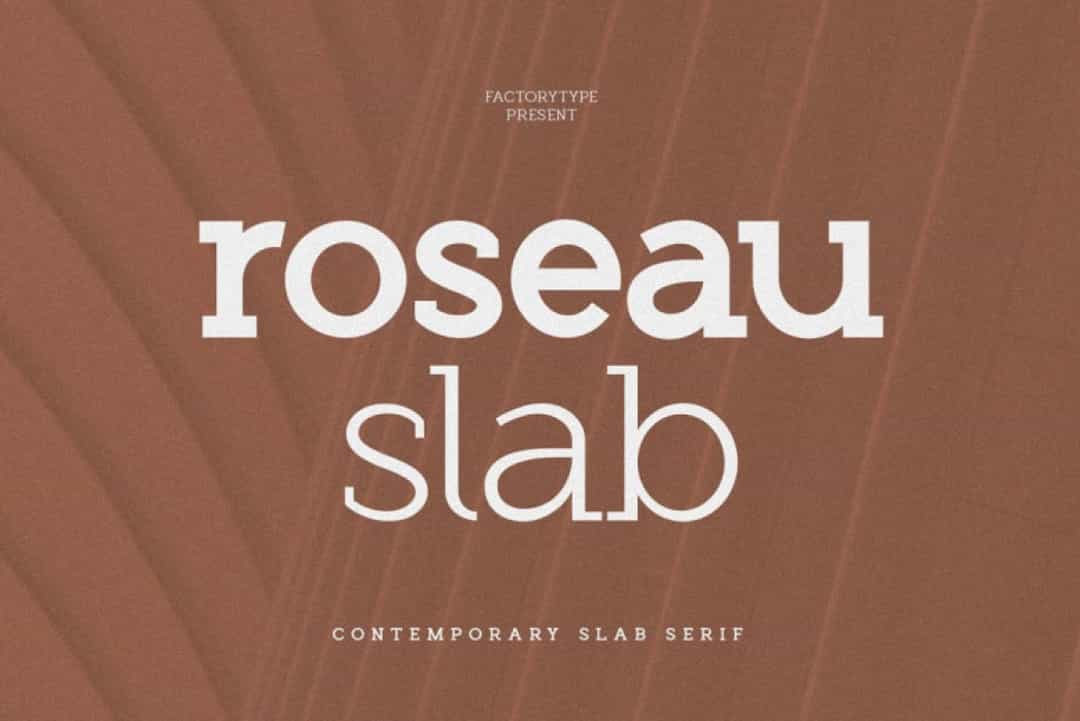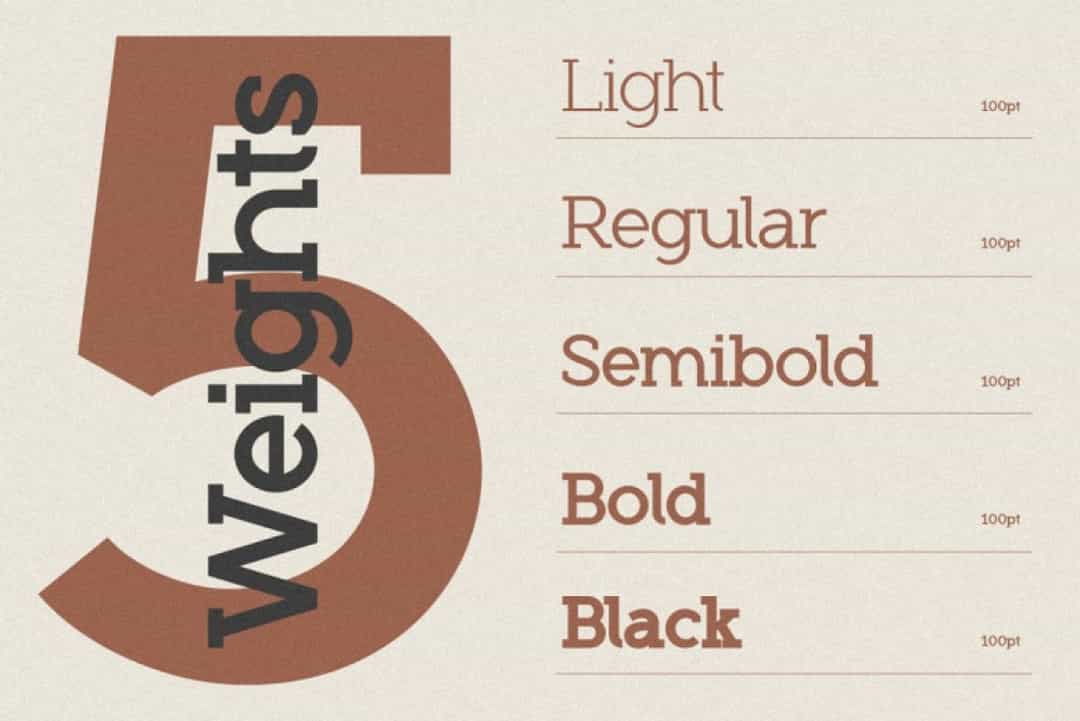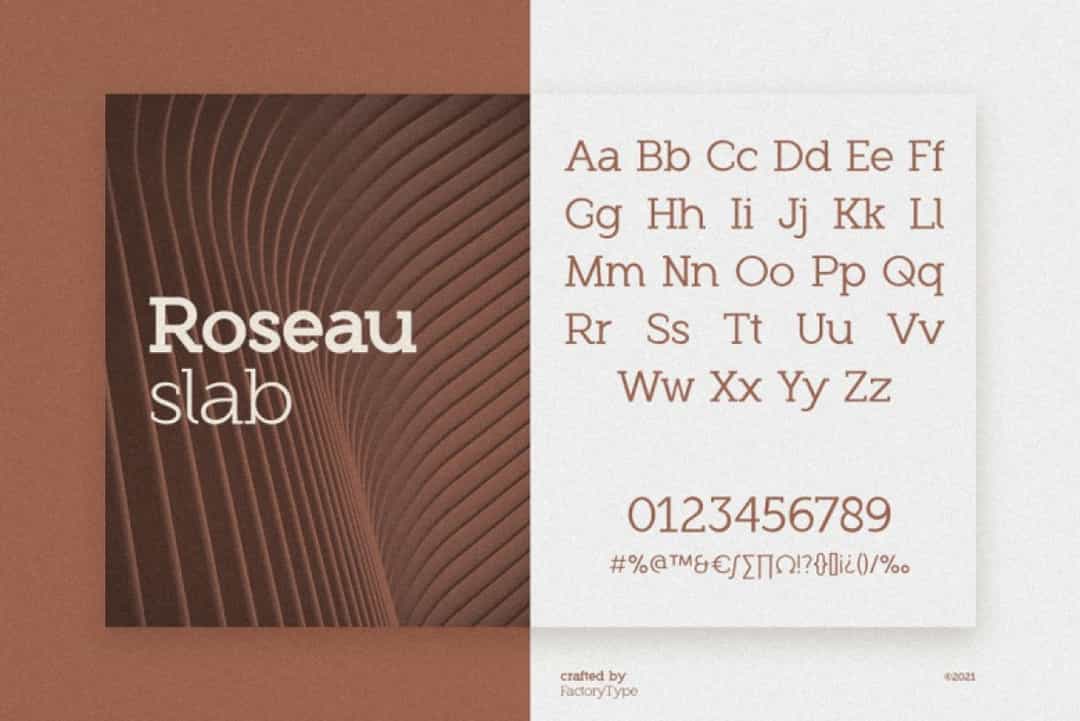
Roseau Slab is an ultramodern slab serif typeface. With multiple weight options to select the one best suited to your project’s color palette and unique sans serif font capabilities, it’s unmatched when it comes to using headlines of your business, brand identity or logo; poster magazines; or magazine cover spreads.